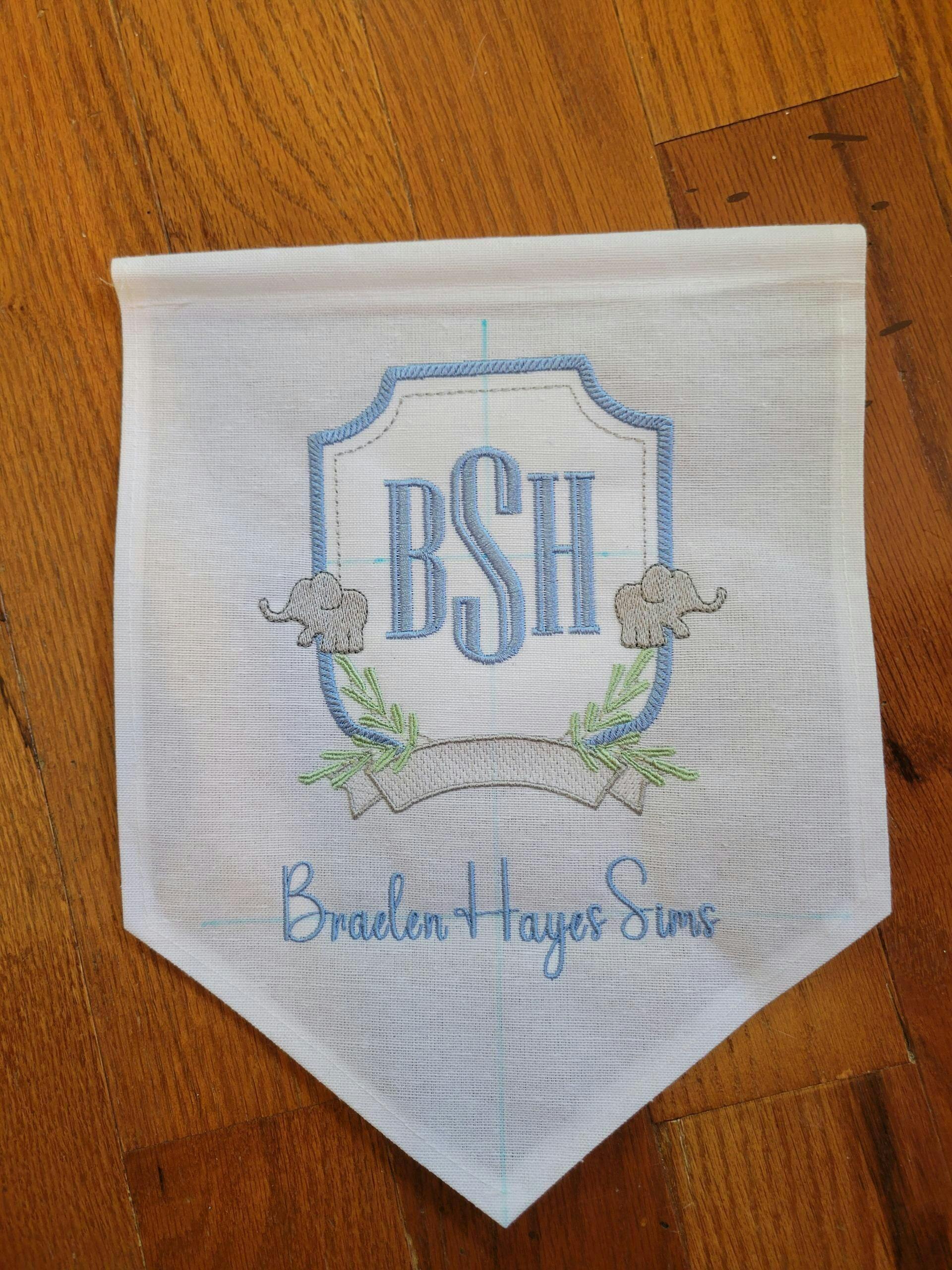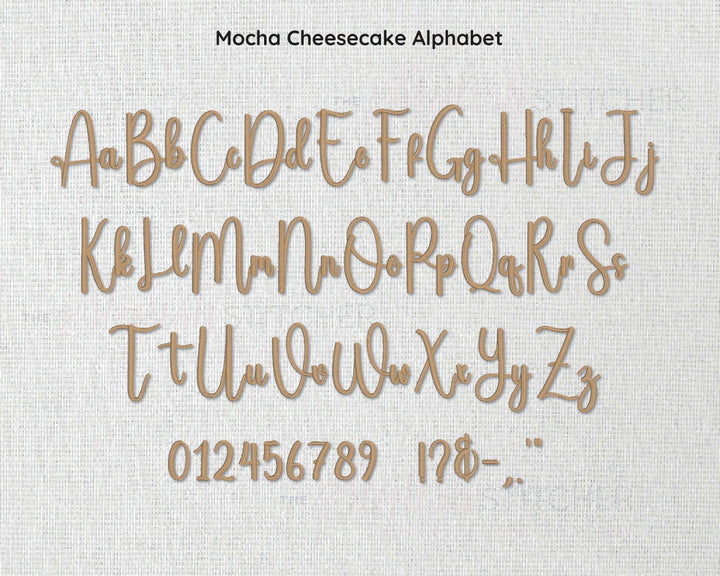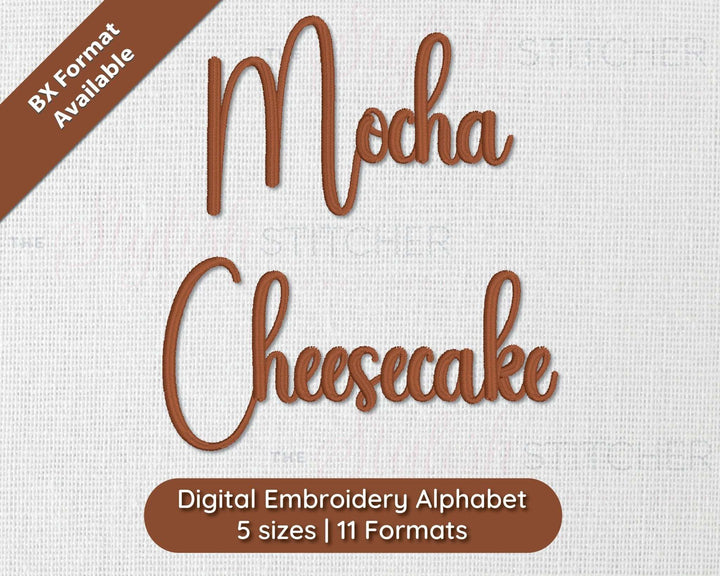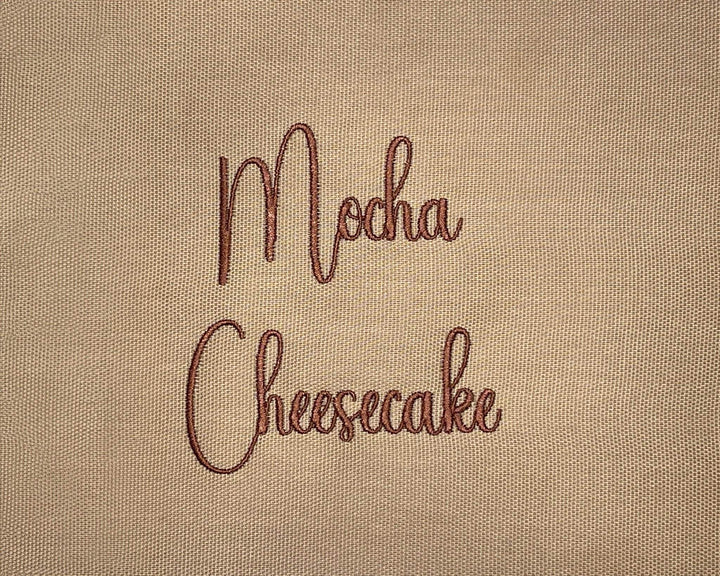
Photograph of Mocha Cheesecake embroidery font
Photograph of Mocha Cheesecake embroidery font alphabet
Photograph of stitched out Mocha Cheesecake embroidery font
Mocha Cheesecake Digital Embroidery Font
The Mocha Cheesecake digital embroidery font exudes a warm, inviting appeal, reminiscent of a cozy coffee shop.  The font style is elegant yet casual, with a handcrafted touch that suggests personalization and artisanal quality. Each character has a distinctive flow, with subtle variations in thickness that give the font a dynamic rhythm. This font would be ideal for projects that require a touch of sophistication without being overly formal, making it as delightful and comforting as its namesake dessert.
Stitch Type: Satin Stitch